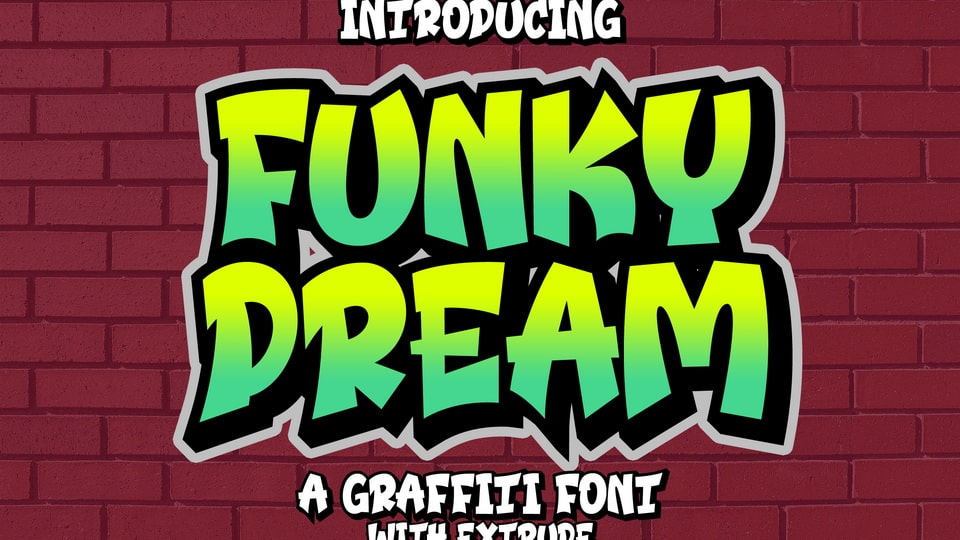
Download Funky Dream font, a cool, graffiti-style display typeface. Funky Dream font is suitable for designs such as t-shirts, sportswear, logos, advertisements, clothing, and more.